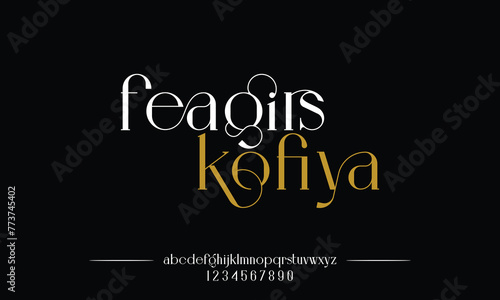
Feagirs Kofiya is Elegant Font Uppercase Lowercase and Number. Classic Lettering Minimal Fashion Designs. Typography modern serif fonts regular decorative vintage concept. vector illustration